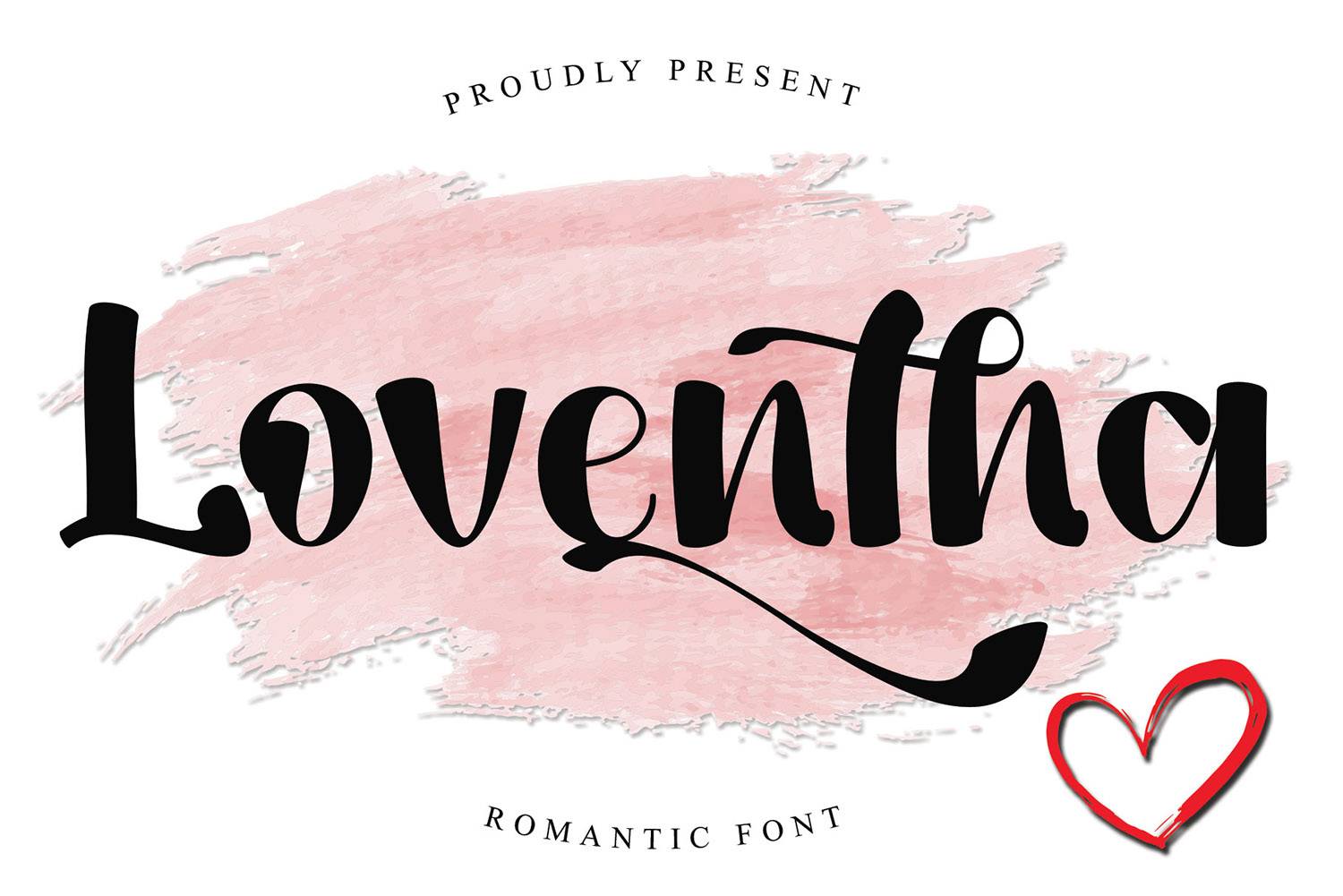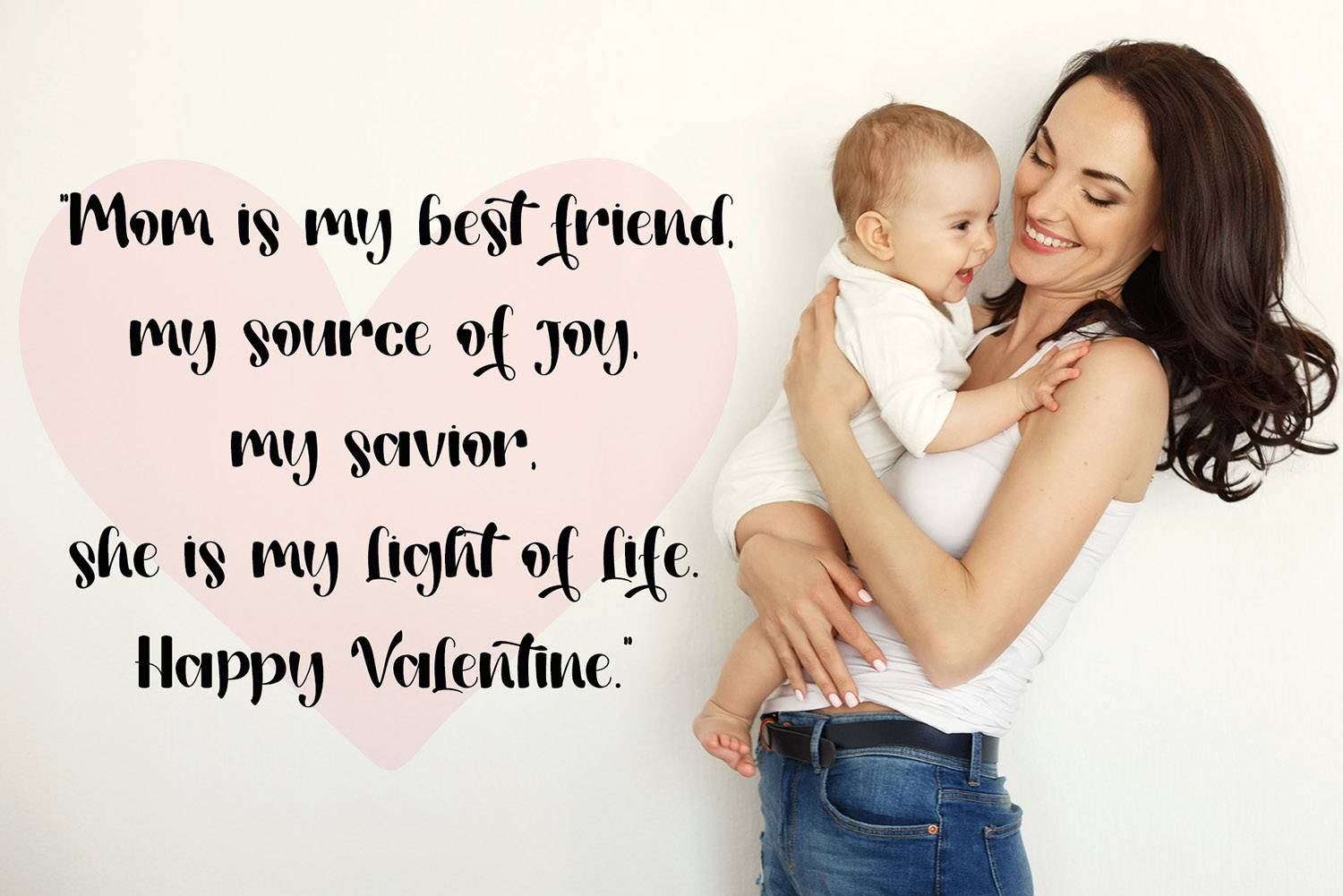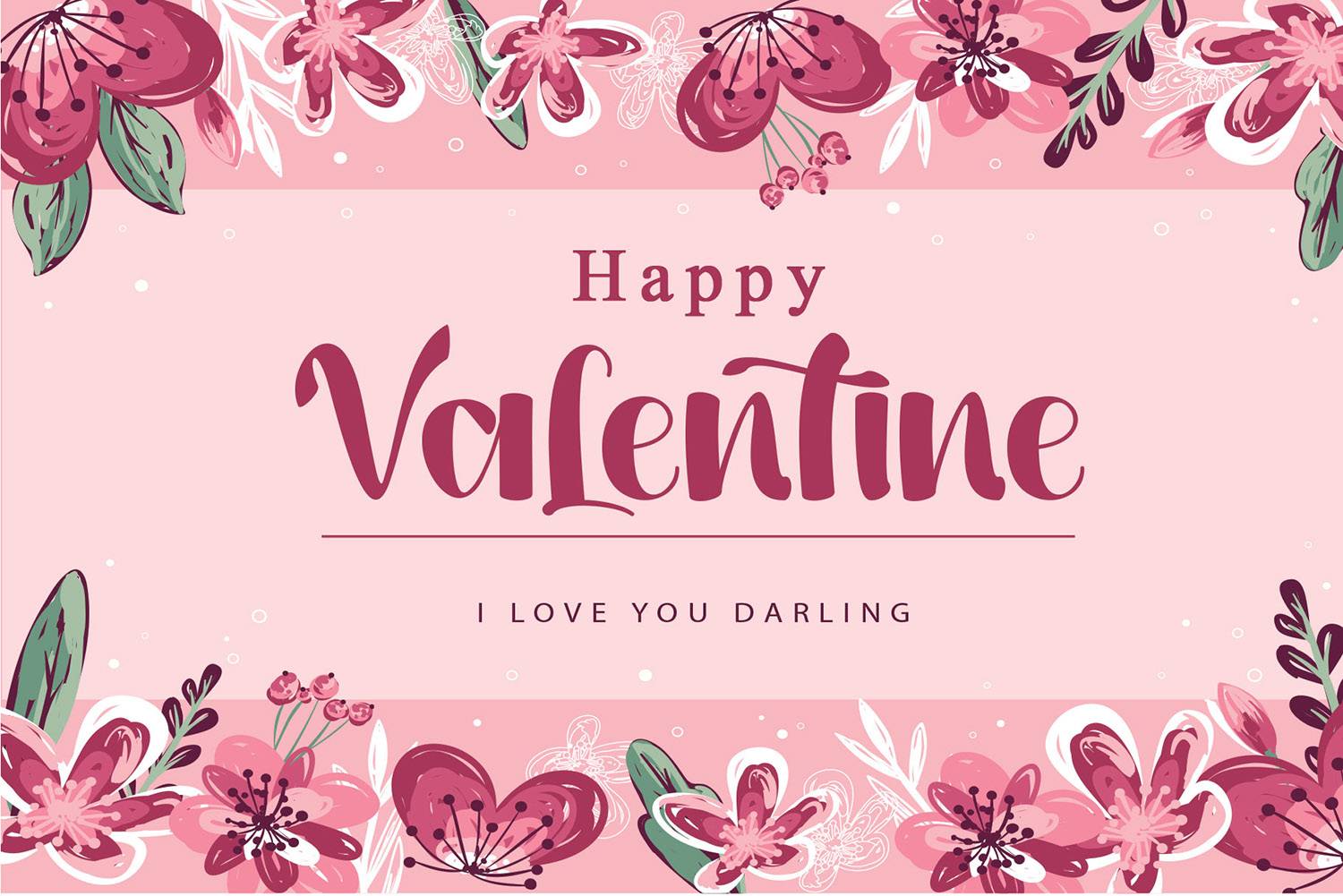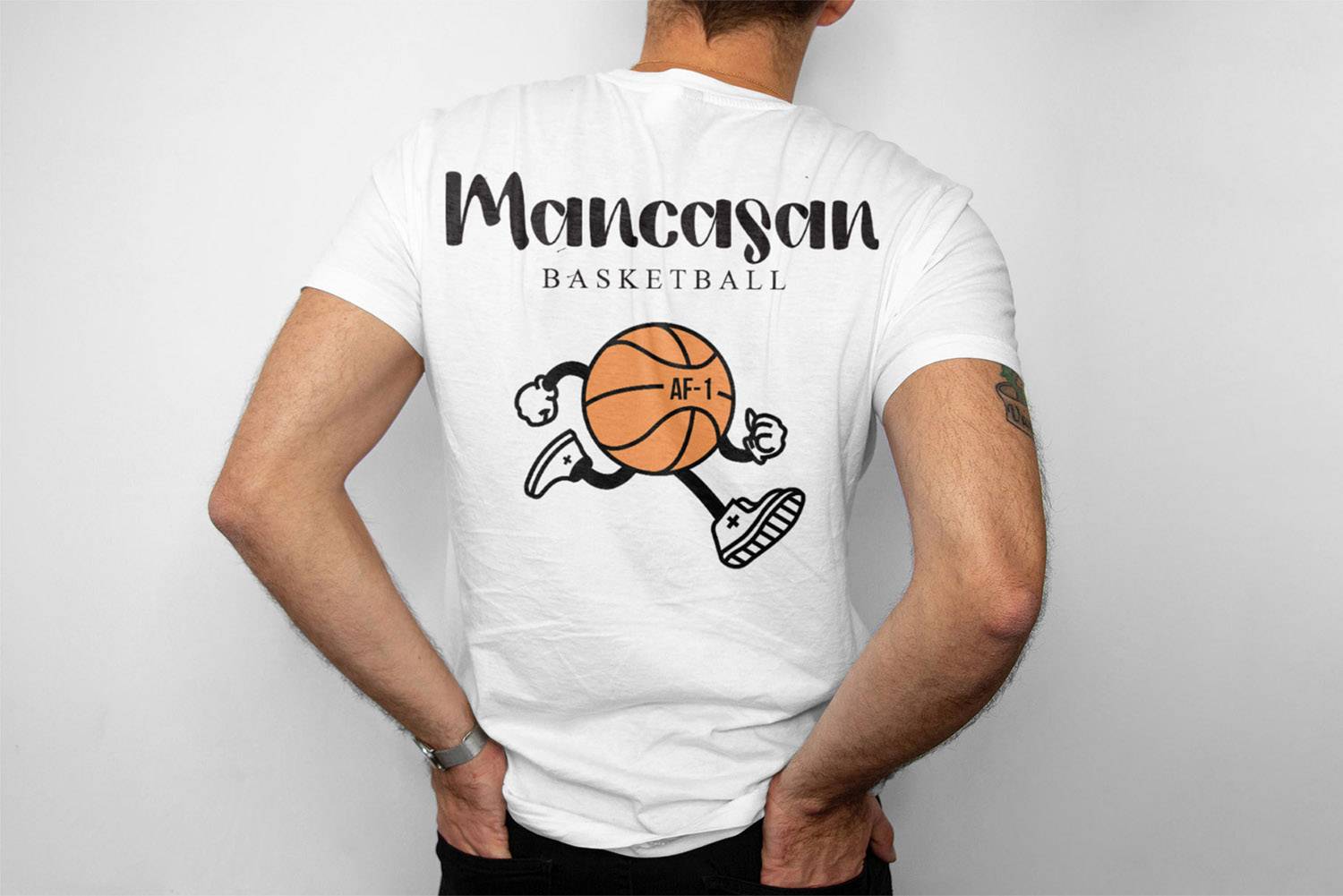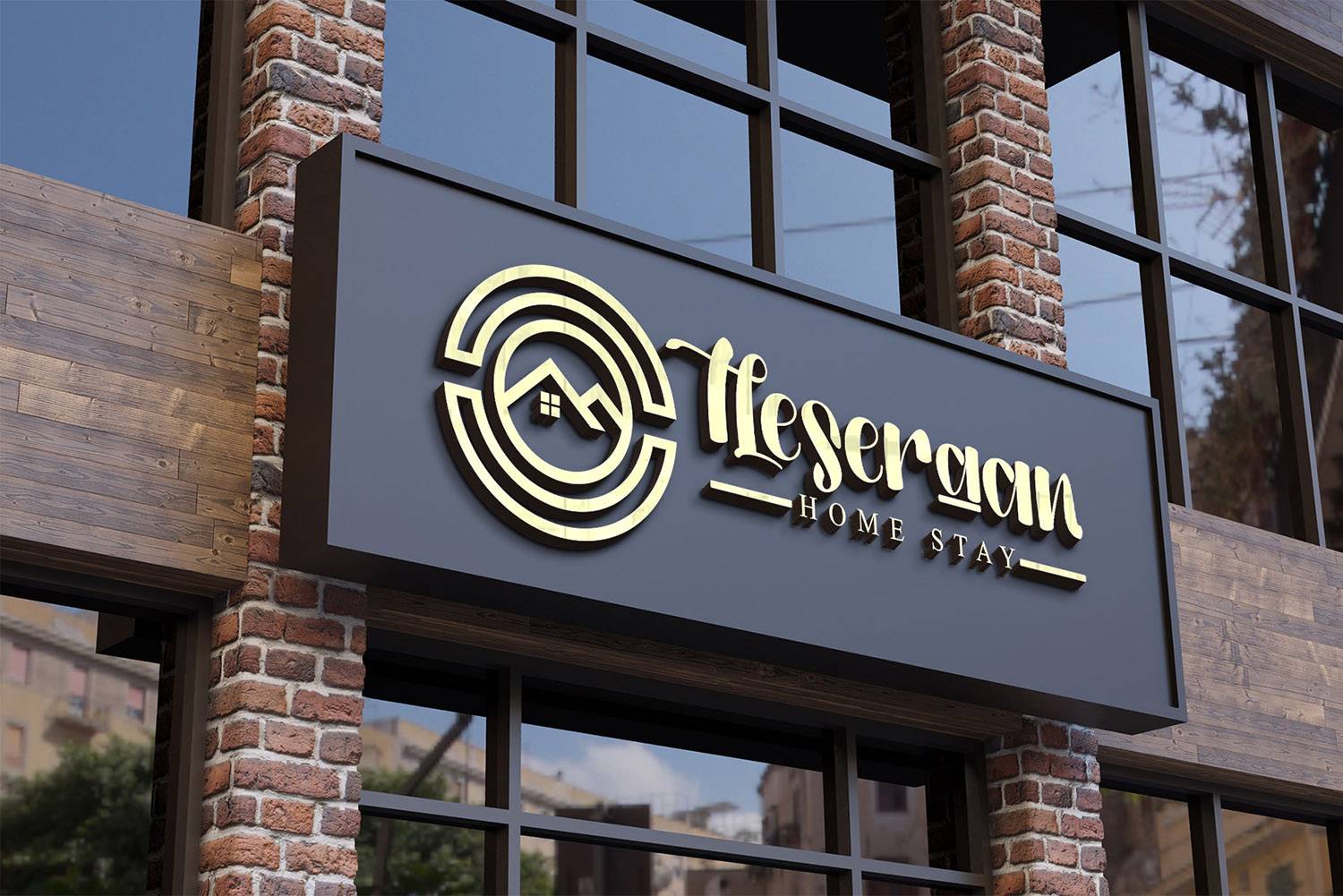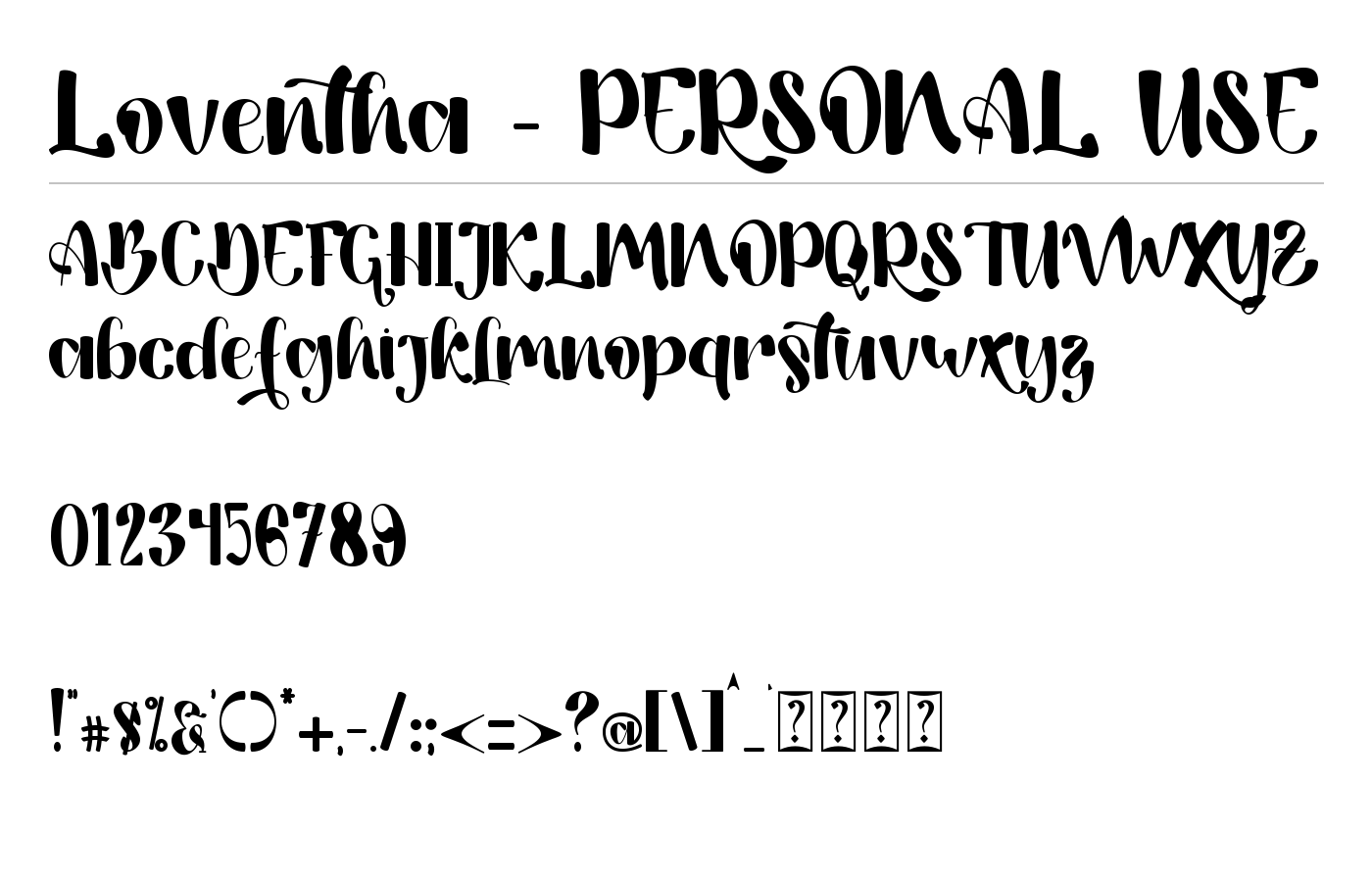
Lovenha is a playful and elegant script-style font with a casual, handwritten feel marked by bold strokes and playful swashes. Its lively letterforms and uneven baseline give it a friendly, approachable personality, making it perfect for creative branding, invitations, and eye-catching headlines where a personal touch is desired. This font works well when you want to add charm and uniqueness to projects without sacrificing readability.
Loventha Font
About Loventha Font
| Font family | Loventha Font |
| Designer | Arkrist Letter |